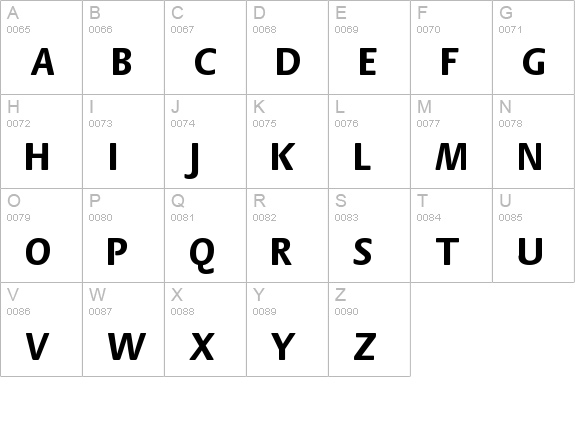
QTFloraline Bold Font Details
QTFloraline Bold is a strong, high-contrast variant in the QTFloraline typeface family \xE2\x80\x94 well suited to headlines, attention-grabbing titles, and strong calls-to-action.
QTFloraline Bold is a captivating and expressive font that exudes elegance and sophistication. With its bold and powerful letterforms, this font demands attention and makes a statement wherever it is used. The strong strokes and intricate details of each character make QTFloraline Bold a versatile choice for a variety of design projects. This font is perfect for creating eye-catching headings, logos, posters, and invitations. Its unique and distinctive style adds a touch of flair and personality to any design, making it stand out from the crowd. Whether you're designing for a corporate brand, a trendy fashion label, or a creative project, QTFloraline Bold is sure to leave a lasting impression. One of the best things about QTFloraline Bold is that it is freely available to download at FontsMarket.com. This means that you can access this stunning font without any cost or restrictions. FontsMarket.com is a reputable source for high-quality fonts, and their commitment to providing free access to QTFloraline Bold ensures that designers and creatives can explore its potential without any limitations. So, if you're looking for a bold and stylish font that will make your designs pop, look no further than QTFloraline Bold. Download it for free at FontsMarket.com and unleash your creativity with this extraordinary typeface. Let QTFloraline Bold take your design projects to new heights and make a lasting impression on your audience.